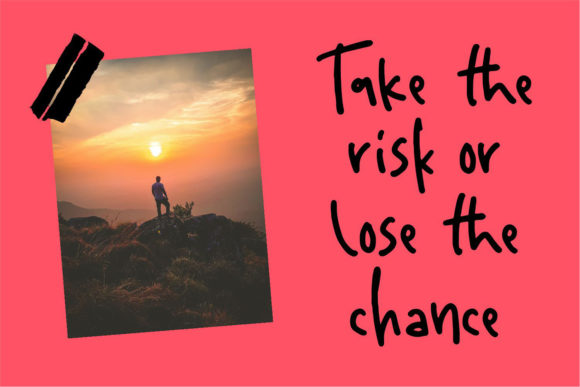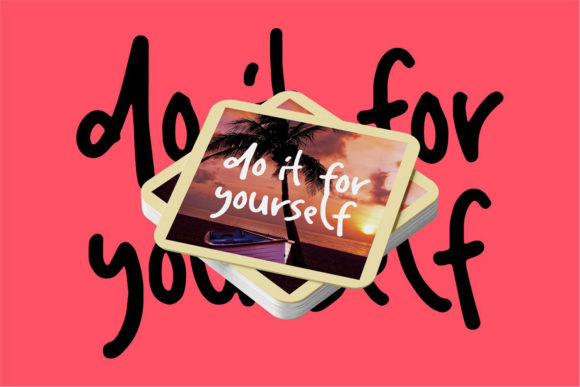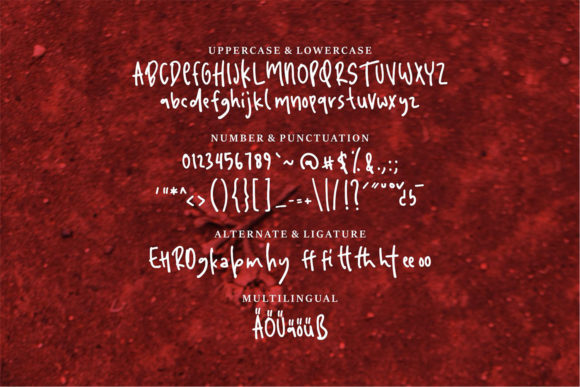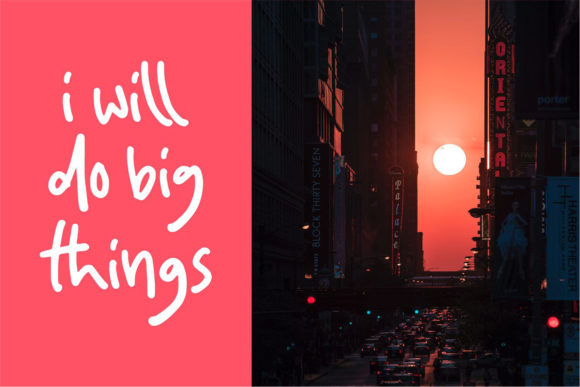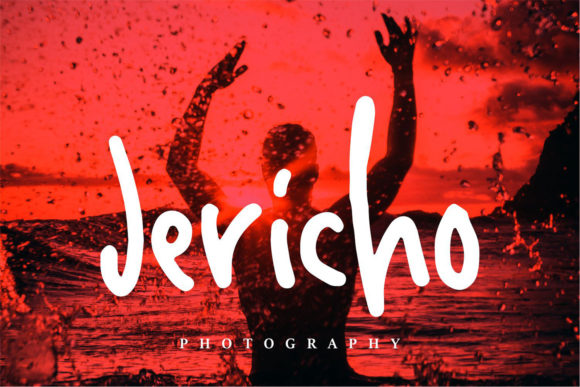
Dachil Font
About Dachil Font
Dachil is an exquisite handwritten font that captures the essence of calligraphy with its graceful and flowing style. Its beauty shines through on a variety of design projects, making it a versatile choice for a wide range of applications. Whether you’re working on invitations, greeting cards, branding materials, business cards, quotes, or posters, Dachil adds a touch of elegance and sophistication that enhances the visual appeal of your creations.
The font’s calligraphy-inspired design lends a sense of timeless charm to your designs, making it particularly well-suited for projects that require a touch of class and refinement. Its flowing strokes and intricate details create a sense of artistry that can elevate your work and captivate the viewer’s attention.
Dachil’s versatility allows it to adapt seamlessly to different design contexts. It exudes a sense of luxury and elegance on wedding invitations, adding a touch of romance and sophistication to the special day. On branding materials and business cards, Dachil lends a distinctive and memorable flair that helps your brand stand out.
The font’s application extends to quotes and posters, where its unique calligraphic style adds depth and character to your messages. Dachil’s versatility means it can convey a wide range of emotions and aesthetics, whether you’re aiming for a whimsical and playful tone or a more refined and traditional look.
Dachil’s artistic and handcrafted quality makes it an ideal choice for projects that require a personal touch. Its ability to convey emotions and evoke a sense of elegance makes it a valuable asset for any designer looking to create impactful and visually stunning compositions.